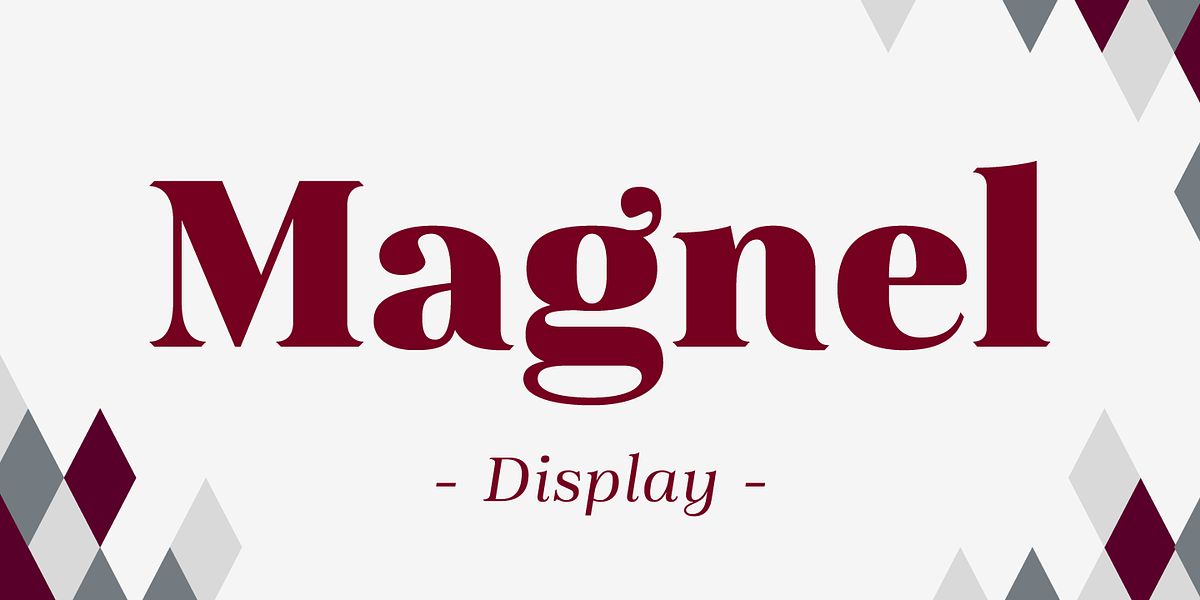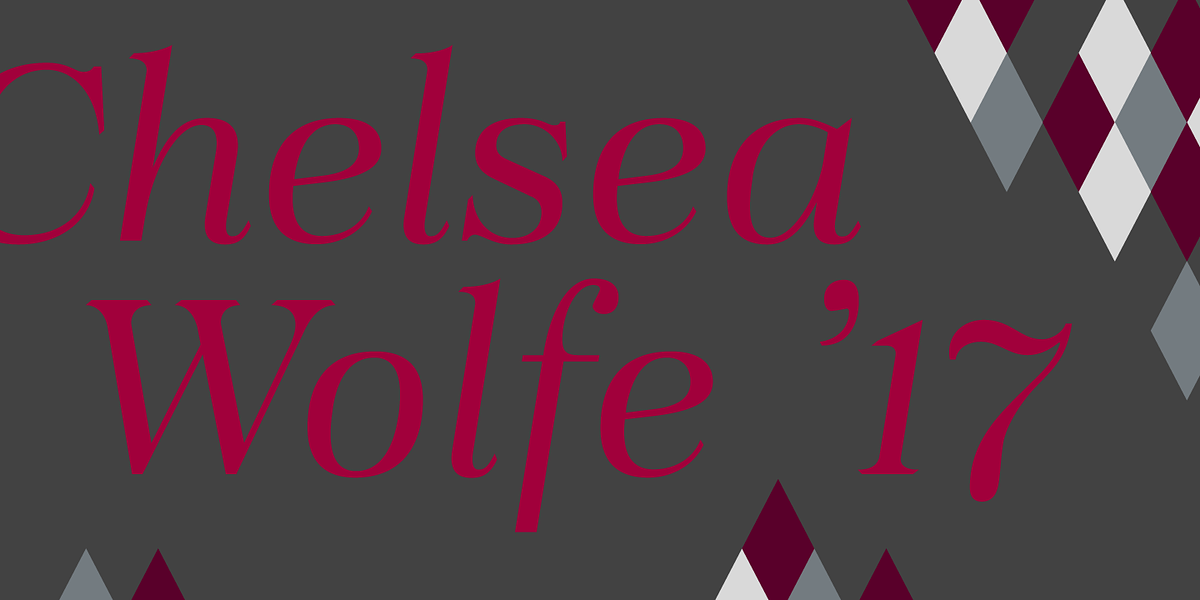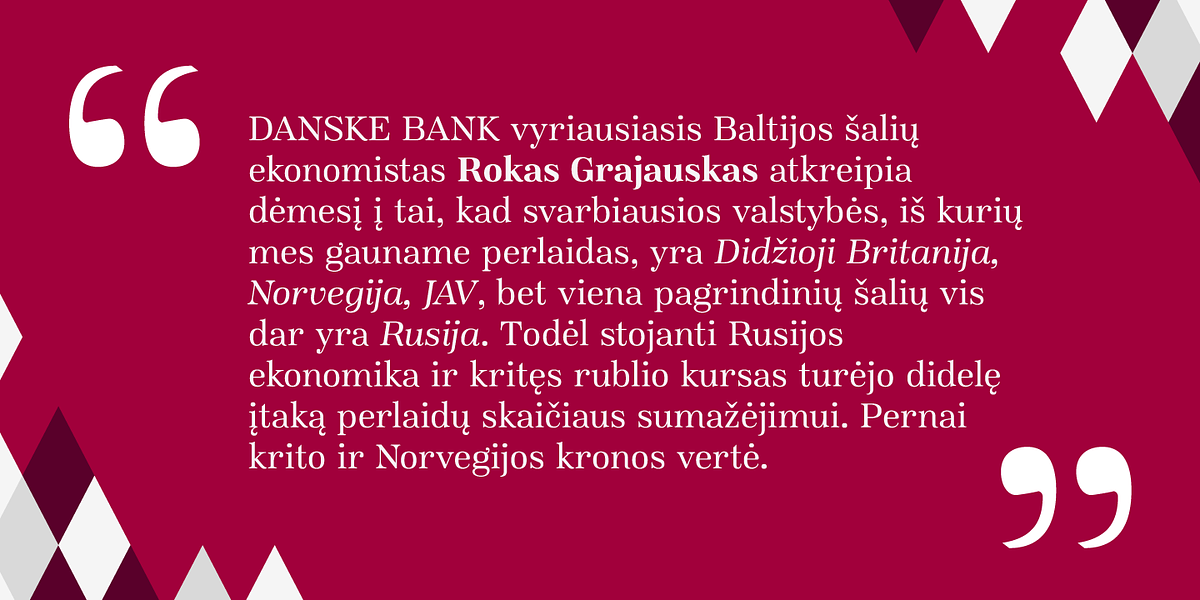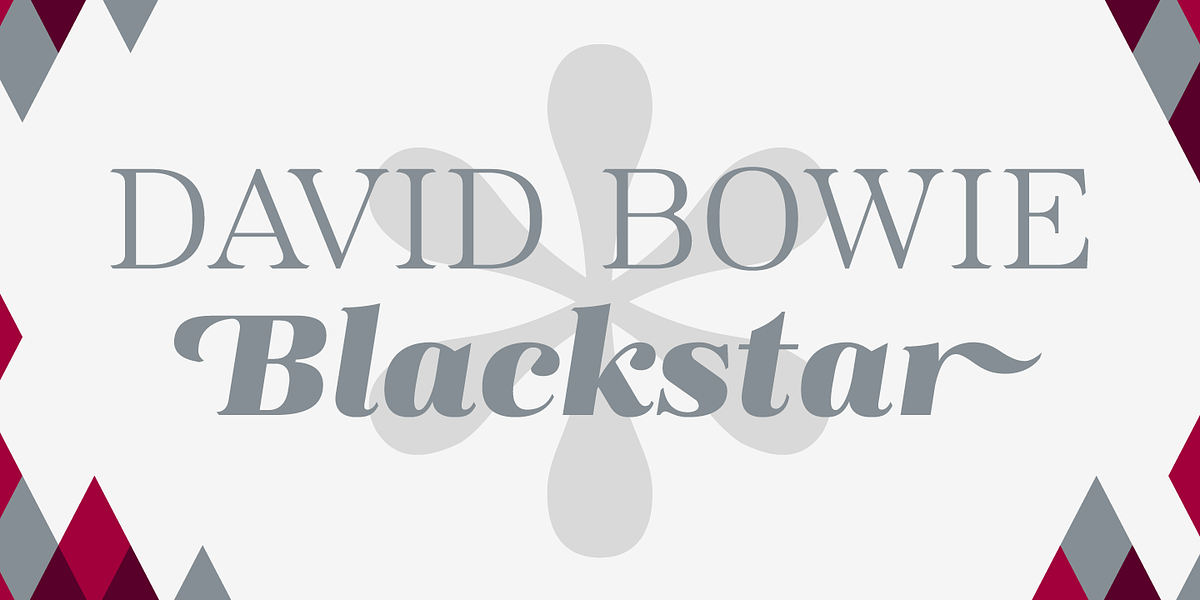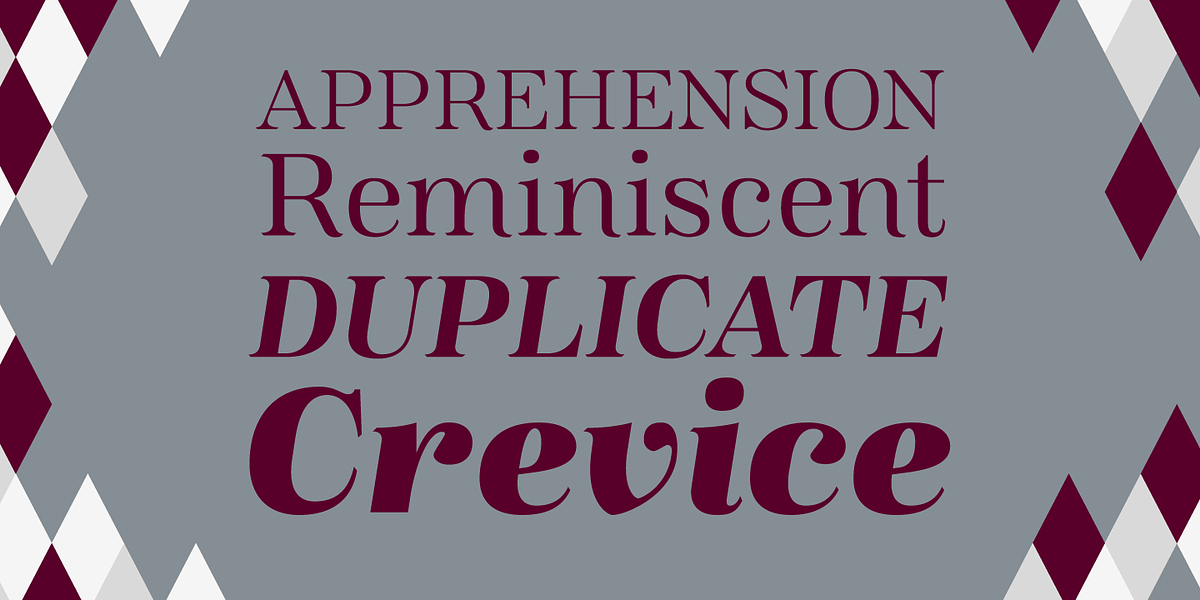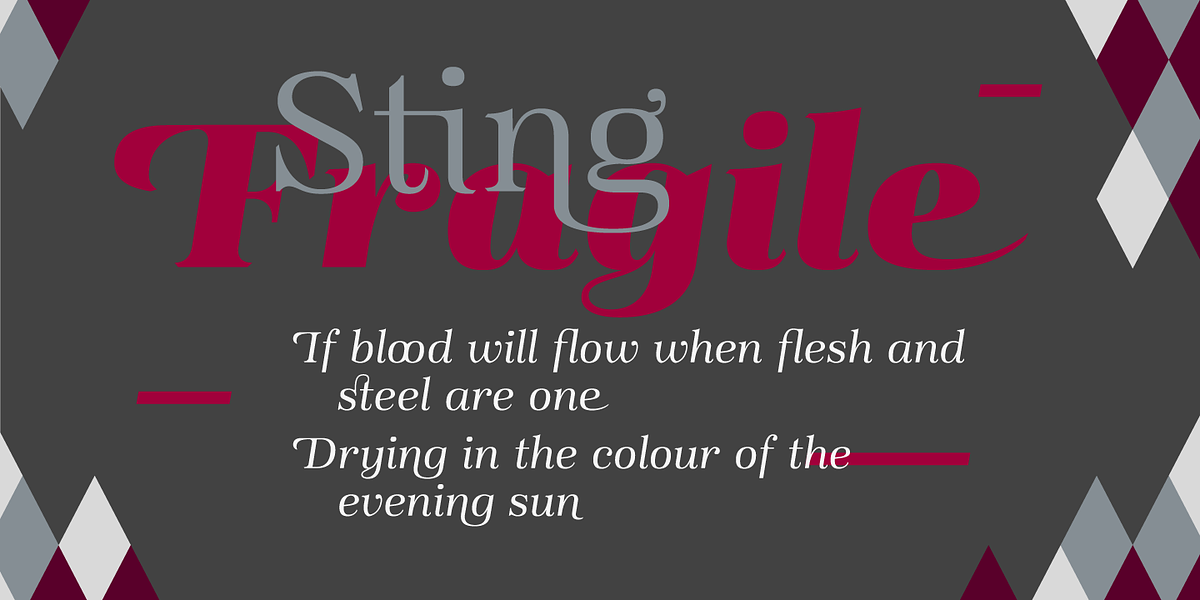
Magnel Display
This display serif font belongs to the Didone classification, characterized by its high contrast between thick and thin strokes. Its defining feature is a large x-height, making it legible even at smaller sizes. The asymmetric leg design gives it a unique feminine touch reminiscent of oriental calligraphy. The font includes accented swashes, decorative ligatures, and oldstyle numerals for added versatility and stylistic flair.